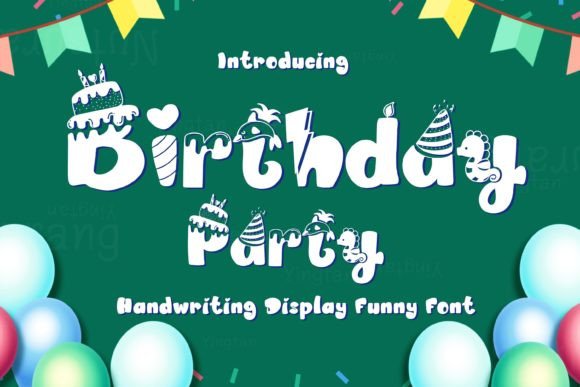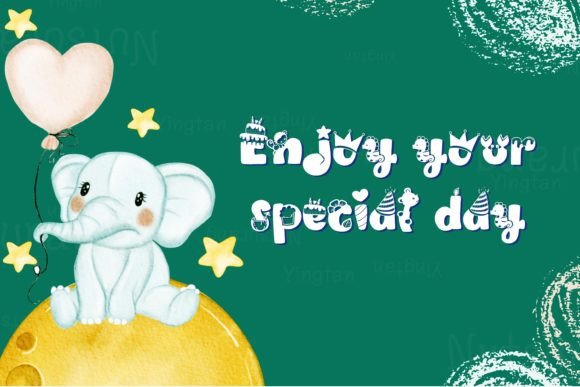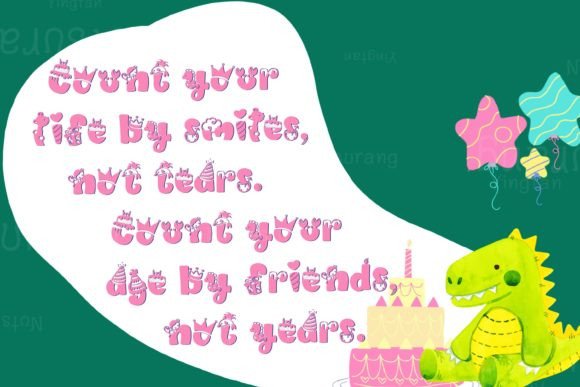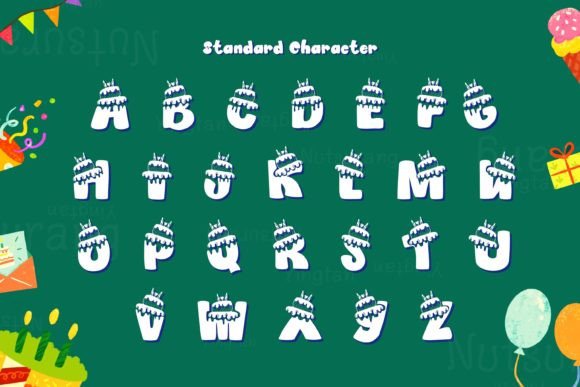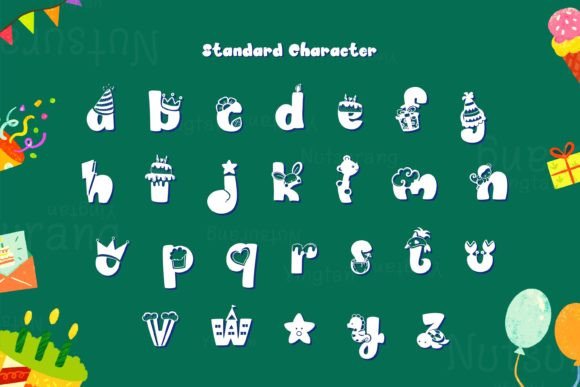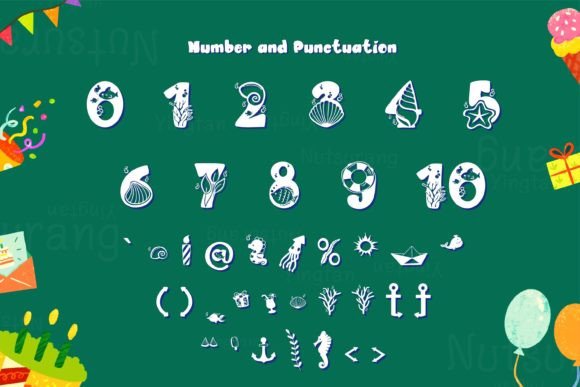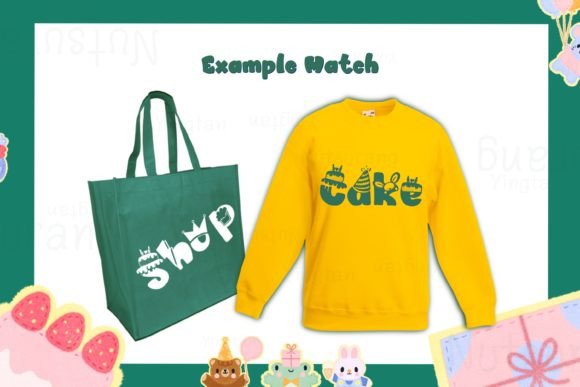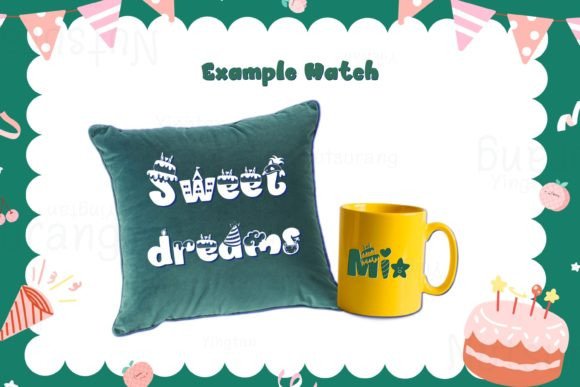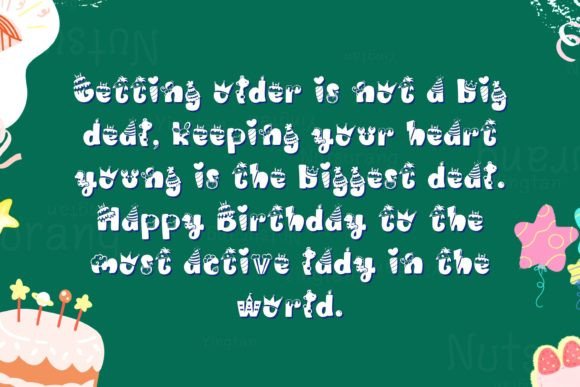
Birthday Party Font
Birthday Party is a cute and quirky display font. It will add an incredibly joyful
touch to your designs. Add this beautiful display font to each of your
creative ideas and notice how it makes them stand out!